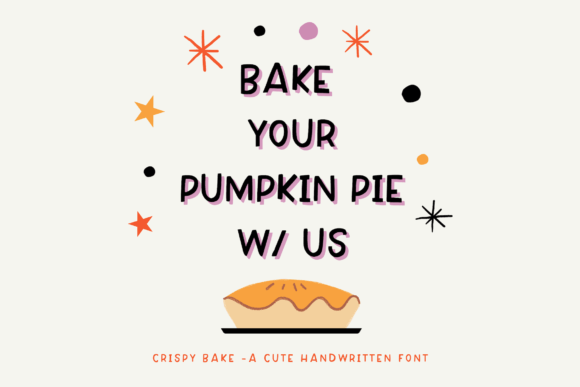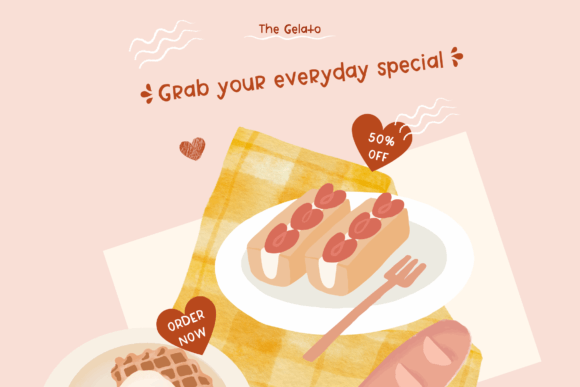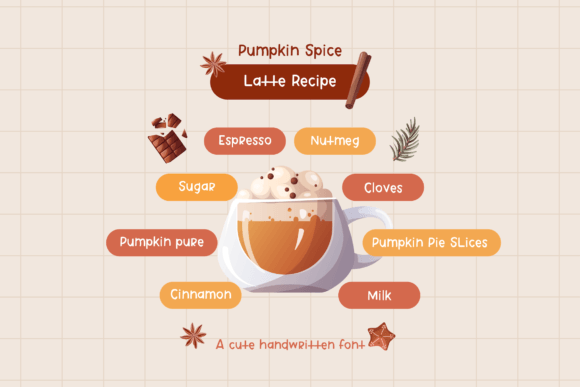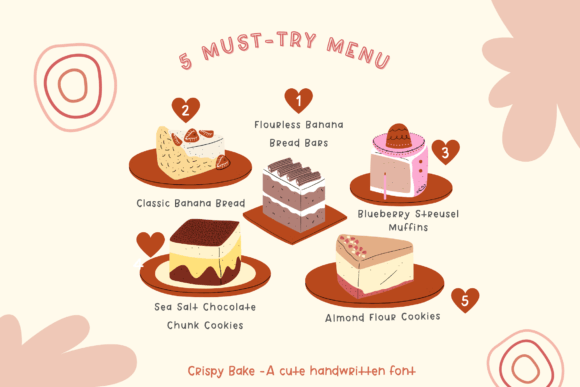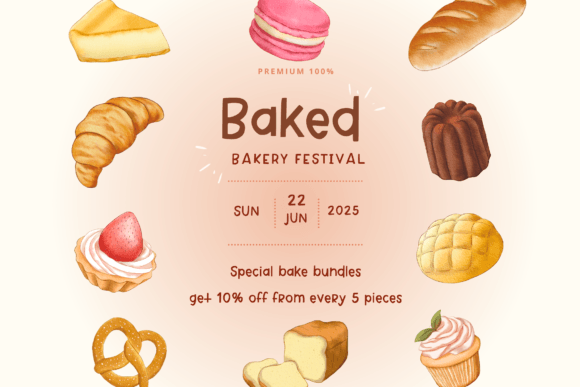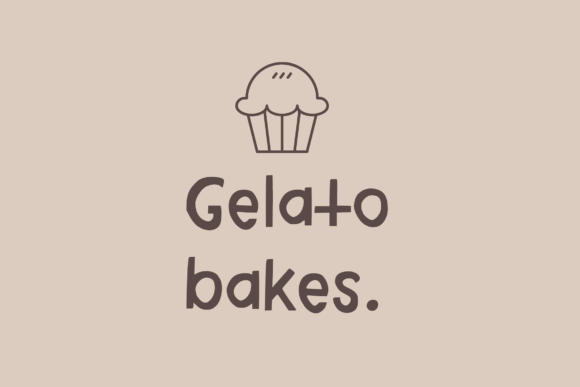
Crispy Bake Font: Elevate Your Digital Notes and Designs with a Tidy Handwritten Style
Are you tired of using the same old fonts for your digital notes and designs? Look no further than Crispy Bake, a beautiful handwritten font that adds a touch of elegance and sophistication to any project. With its bold weight and tidy note-taking style, Crispy Bake is perfect for designers, crafters, and anyone looking to elevate their digital creations.
The Perfect Font for Digital Notes and Journals
Crispy Bake is specifically designed to give your digital notes and journals a fresh and modern look. Its bold weight conveys a sense of relaxation and motivation, making it perfect for study notes, to-do lists, and goal setting. Whether you’re using an iPad planner, digital planner, or GoodNotes template, Crispy Bake is the perfect font to add a personal touch to your digital notes.
Versatile and Multifaceted
One of the best things about Crispy Bake is its versatility. This font is not just limited to digital notes and journals; it’s also perfect for a wide range of design projects, including:
- Quotations: Add a touch of elegance to your inspirational quotes and phrases.
- Banners: Create eye-catching banners for your website, social media, or marketing materials.
- Logos: Use Crispy Bake to create a unique and memorable logo for your brand.
- Product Packaging: Add a personal touch to your product packaging with this beautiful font.
- Titles and Headers: Use Crispy Bake to create stunning titles and headers for your blog posts, articles, or website.
- Menu Lists: Add a touch of sophistication to your menu lists and make them stand out.
Why Choose Crispy Bake?
So, why choose Crispy Bake over other fonts? Here are just a few reasons:
- Unique and Handwritten Style: Crispy Bake has a unique and handwritten style that sets it apart from other fonts.
- Bold Weight: The bold weight of Crispy Bake conveys relaxation and motivation, making it perfect for study notes and digital journals.
- Versatility: Crispy Bake is perfect for a wide range of design projects, from digital notes to logos and product packaging.
- Elegant and Sophisticated: Crispy Bake adds a touch of elegance and sophistication to any project, making it perfect for designers and crafters.
- Pair it with Other Fonts: Pair Crispy Bake with other fonts to create a unique and visually appealing design.
- Use it for Headings and Titles: Use Crispy Bake for headings and titles to add a touch of elegance and sophistication.
In conclusion, Crispy Bake is a beautiful handwritten font that’s perfect for designers, crafters, and anyone looking to elevate their digital creations. With its bold weight, tidy note-taking style, and versatility, Crispy Bake is the perfect font for a wide range of design projects. Whether you’re creating digital notes, logos, or product packaging, Crispy Bake is sure to add a touch of elegance and sophistication.